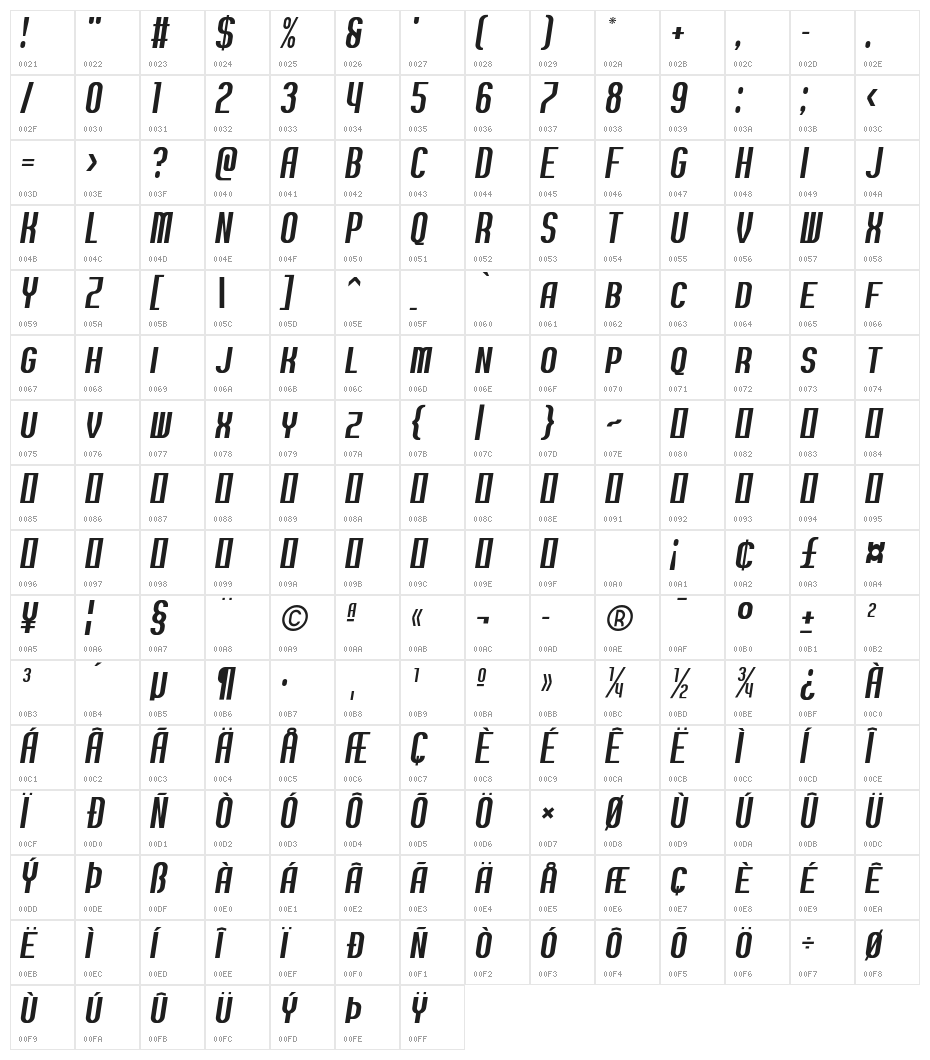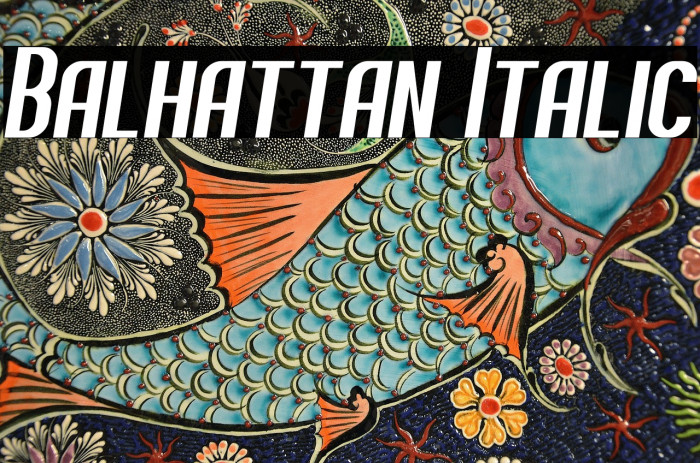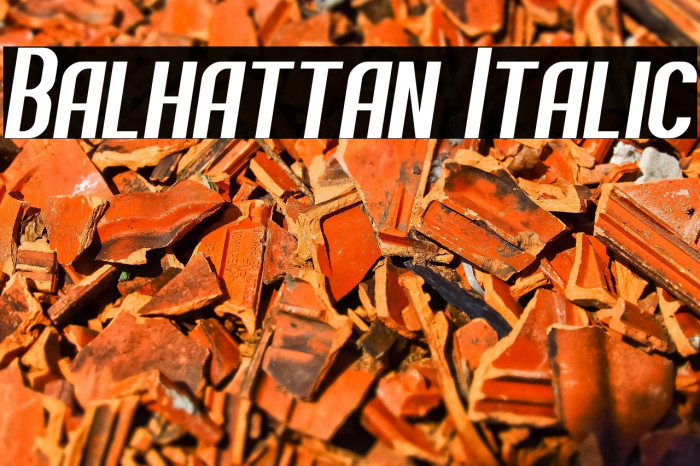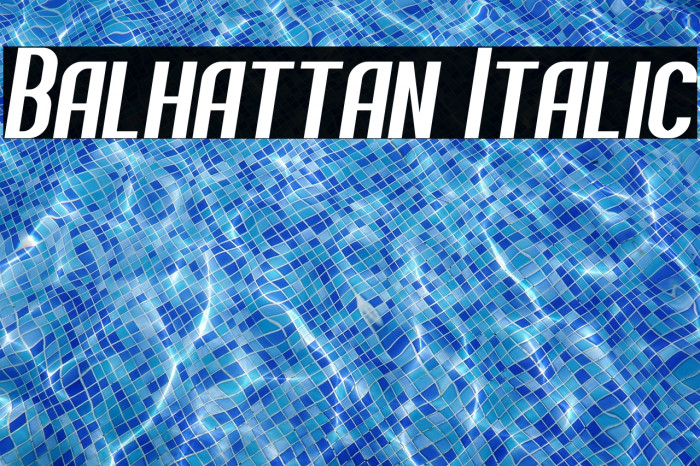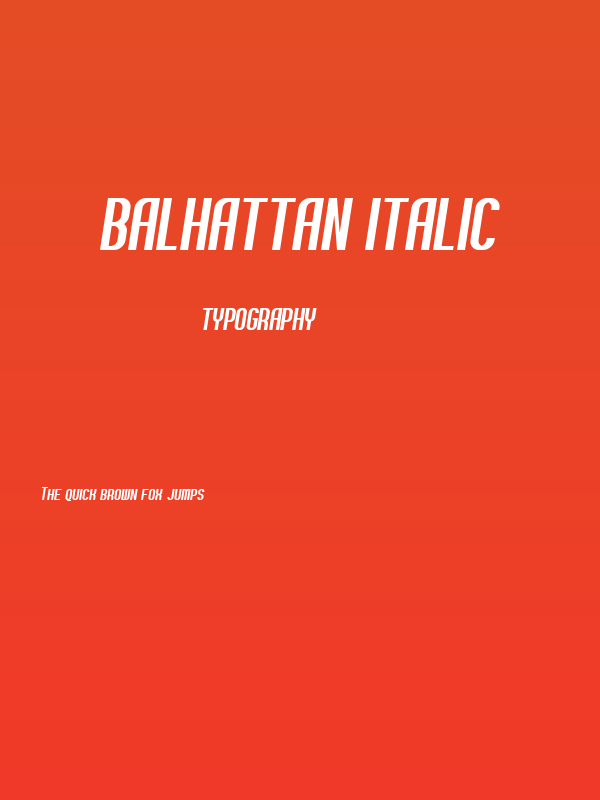
Balhattan Italic Font
Balhattan Italic Description
This font features a bold, italicized style with a strong presence. The characters are elongated and slightly condensed, giving a sleek and modern appearance. The uppercase and lowercase letters maintain a consistent slant, enhancing the italic effect. Numbers and special characters are designed to match the overall aesthetic, ensuring uniformity across all glyphs. The font's high contrast in stroke thickness adds to its dynamic look, making it suitable for attention-grabbing designs.
| Proposed Projects | Ideal for branding, advertising, headlines, and poster designs where a strong, modern impression is desired. |